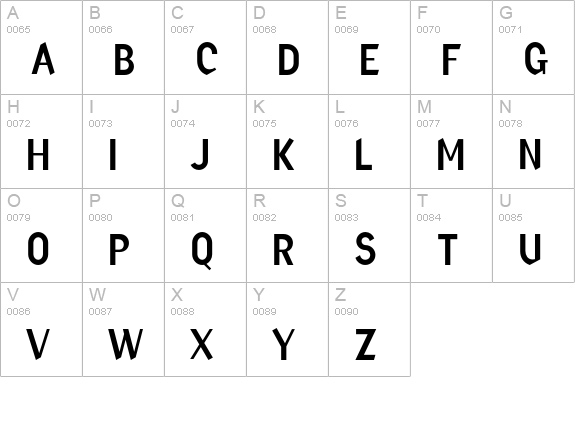
Factory-LiningNumbers Font Details
Factory-LiningNumbers font is a stunning display typeface that exudes a sense of modernity and precision. Designed with meticulous attention to detail, this font is perfect for projects that require a sleek and professional look. The clean lines and sharp edges of Factory-LiningNumbers make it an ideal choice for various design applications, such as logos, headlines, posters, and branding materials. Its unique and bold presence demands attention and effortlessly grabs the viewer's gaze. One of the standout features of Factory-LiningNumbers font is its versatility. It seamlessly adapts to different design styles, making it suitable for both minimalist and bold compositions. Whether you're aiming for a subtle and understated aesthetic or a bold and impactful design, this font has you covered. Another remarkable aspect of Factory-LiningNumbers is its extensive character set. With a wide range of numerals, punctuation marks, and special characters, you can explore endless creative possibilities. Whether you're working on a futuristic design or a vintage-inspired project, this font offers the flexibility to bring your vision to life. And the best part? Factory-LiningNumbers font is available for free download at FontsMarket.com. It's a rare find in the world of fonts, where quality and affordability don't always go hand in hand. This font allows you to elevate your designs without breaking the bank, making it a valuable asset for both professional designers and enthusiasts alike. So, if you're looking for a font that combines modernity, precision, and versatility, look no further than Factory-LiningNumbers. Download it for free at FontsMarket.com and unlock a world of creative possibilities.